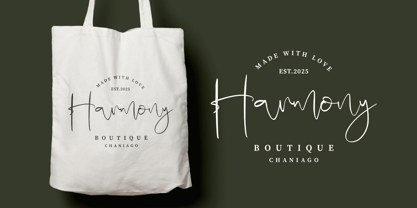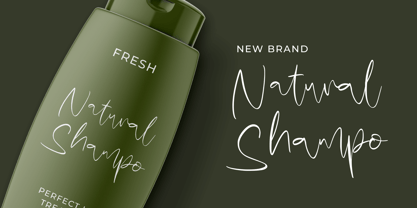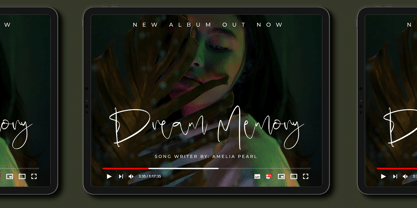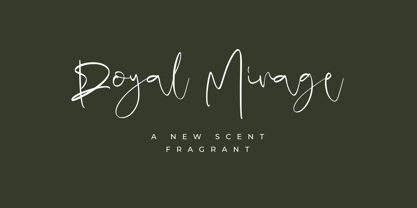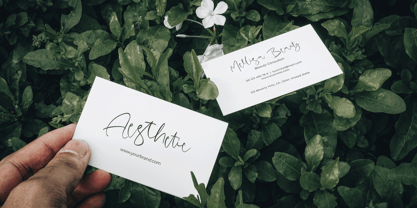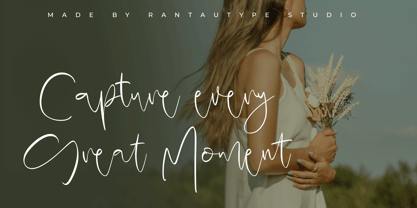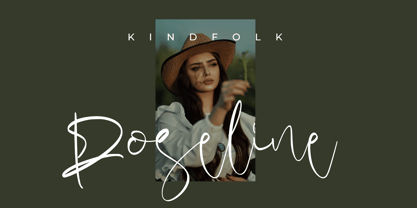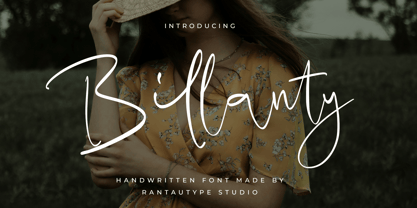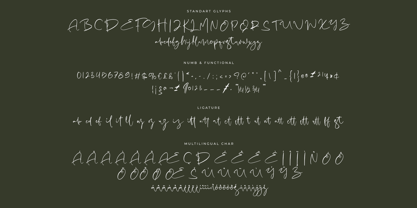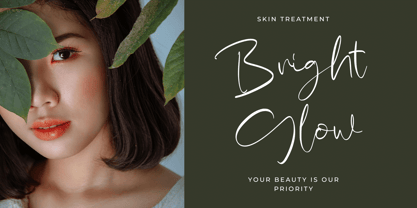
Billanty
Die Schriftfamilie Billanty wurde von Yudi Pratama Chandra entworfen und von RantauType veröffentlicht. Billanty enthält 1 Stile. Mehr über diese Familie
Billanty is handwritten font that embodies effortless charm and contemporary elegance. This font captures the essence of natural handwriting with smooth curves, delicate strokes, and a refined flow. Billanty come with unique blend of casual grace and stylish personality adds warmth and authenticity to every design.
Billanty is a perfectly choice for any creative endeavor, creating, modern, lifestyle design such as logotype, title, cover, branding, invitations, wedding designs, display and magazine, social media posts, advertisements, printed quotes, product packaging, corporate brand, product designs, labels, photography, watermarks, special events and any other project with handwritten feel.
What you have:
• Standart Glyphs
• Numberial and Functional
• Ligature and alternate
Fonts include multilingual support for: Afrikaans, Albanian, Basque, Bemba, Bena, Breton, Catalan, Chiga, Cornish, Danish, Dutch, English, Estonian, Filipino, Finnish, French, Galician, German, Icelandic, Indonesian, Irish, Italian, Kinyarwanda, Luxembourgish, North, Norwegian, Portuguese, Romansh, Rombo, Rundi, Scottish, Gaelic, Sena, Shambala, Shona, Soga, Somali, Spanish, Swahili, Swedish, Swiss, German.